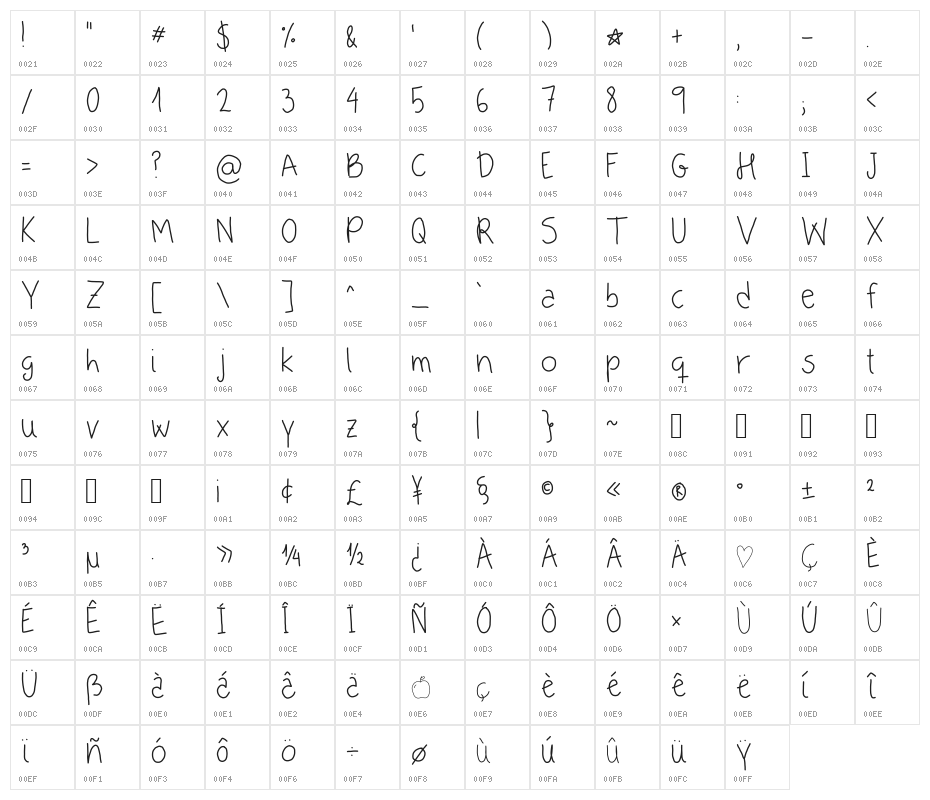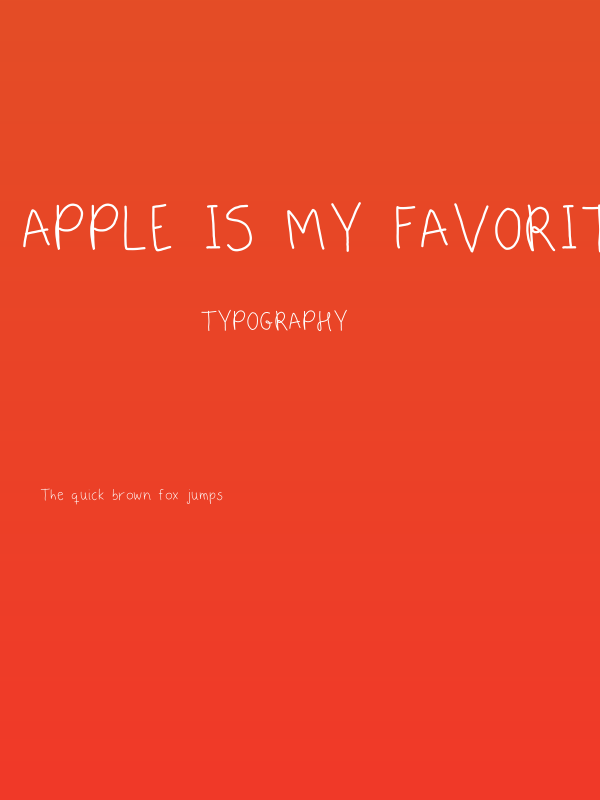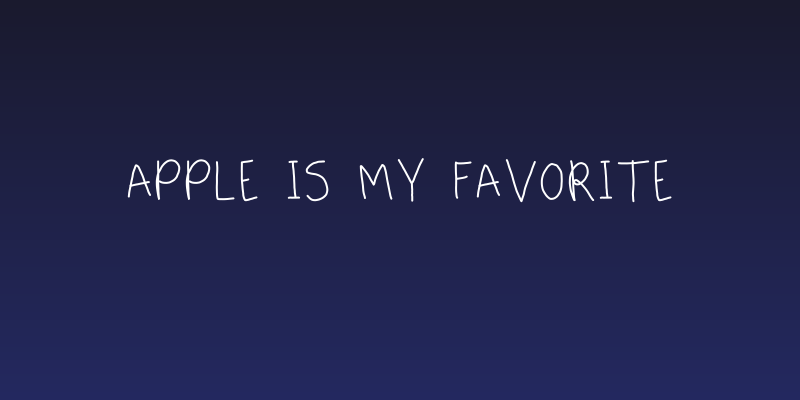
Apple Is My Favorite Font
Apple Is My Favorite Description
This font exudes a playful and casual handwritten style, characterized by its irregular strokes and slightly uneven baseline. The letters are formed with a natural, flowing motion, giving it an approachable and friendly appearance. The uppercase and lowercase letters maintain a consistent style, with rounded edges and a slight tilt, enhancing its informal charm. The numerals and special characters follow the same whimsical design, making the font versatile for various creative applications. Its simplicity and readability make it suitable for projects that require a personal touch, such as greeting cards, invitations, and informal branding.
| Proposed Projects | Ideal for greeting cards, invitations, children's books, and informal branding. |